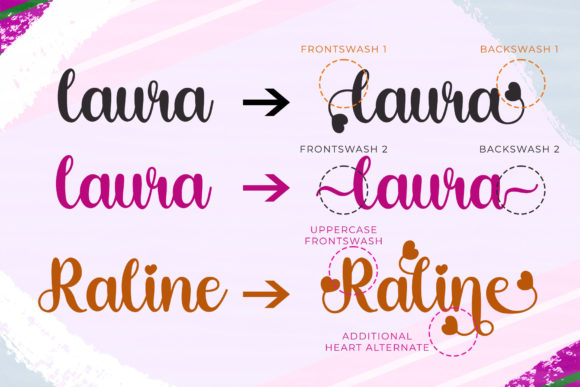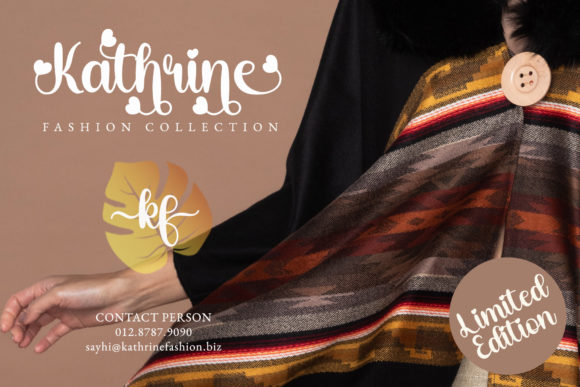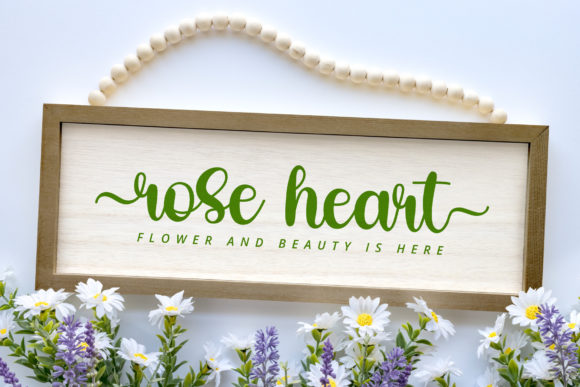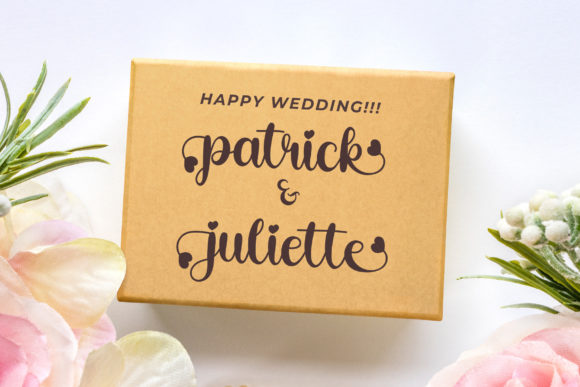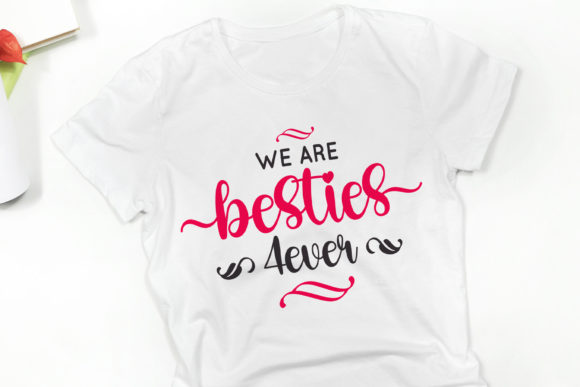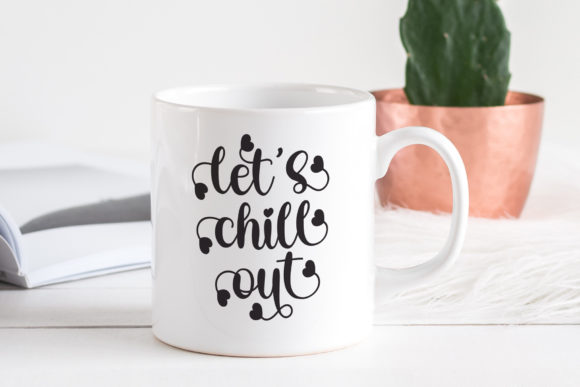
Discover the Art of Luxury Typography with Beauty Michela Font
Have you ever sat down with a blank sheet of paper and a pen, feeling the weight of a creative project on your shoulders? The blank page stares back at you, waiting for your imagination to bring it to life. It’s in these moments that the right tool can make all the difference. For designers seeking to add a touch of elegance to their work, the Beauty Michela Font is an invaluable asset.
This romantic and sweet calligraphy typeface is more than just a font – it’s an invitation to create something beautiful. With its flowing characters that dance along the baseline, the Beauty Michela Font adds a luxury spark to any design project, elevating it from ordinary to extraordinary. Whether you’re designing a wedding invitation, a luxury brand logo, or a special occasion card, this font is sure to leave a lasting impression.
Beauty Michela Font Key Features
- Font Family: Beauty Michela Font is a beautiful and elegant script font, ideal for creative and artistic purposes.
- Unique Characteristics: Features a unique blend of classic and modern elements, with flowing connections between letters and a beautiful, handwritten feel.
Beauty Michela Font Review
I’ve had the chance to work with Beauty Michela Font, and overall, I’m quite impressed. The font has a unique blend of elegance and sophistication, making it perfect for high-end brands and luxury products. Here are some of its standout features:
- ✨ Beautiful script strokes that add a touch of sophistication to any design.
- ✨ Excellent legibility, even at smaller font sizes.
- ✨ Wide range of language support, making it a great choice for international brands.
However, I do have some reservations about the font’s limitations:
- ⚠️ Limited font sizes: While the font looks great at larger sizes, it can appear slightly rough at smaller sizes.
- ⚠️ May not be suitable for modern or tech-savvy brands: The font’s classic look may not be the best fit for brands that want to appear more contemporary.
Overall, I think Beauty Michela Font is a great choice for designers who want to create a luxurious and sophisticated look. While it may have some limitations, its unique features and excellent legibility make it a solid addition to any design arsenal.
Beauty Michela Font is suitable for a variety of projects, including:
1. Wedding invitations and stationery
2. Fashion and beauty branding
3. Luxury product packaging
4. High-end event marketing materials